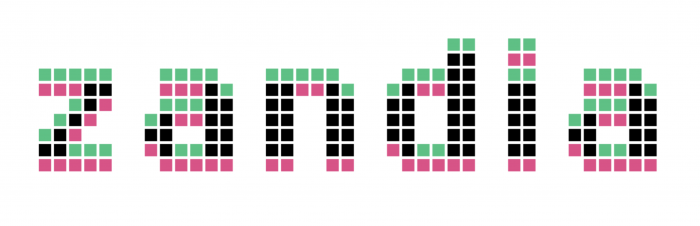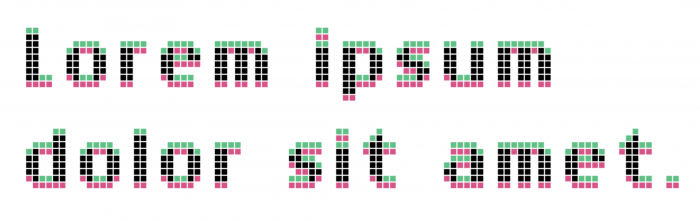
Inspired by the superb Schaar by four, in a pixelated mood. The diacritics needs some extra work.
A glitch in the matrix! ;-)
cool coincidence: sbb perspectives is similar but in horizontal
Great minds think alike. Love this.
Yam!!!!!
Nice. Has that TikTok feel to it.
I love the glitch effect!
@Better Handwriting: Glad you like it. It's a simple font, but it works.
A little bit confusing
I cannot unsee Ralsei from the Dark World...